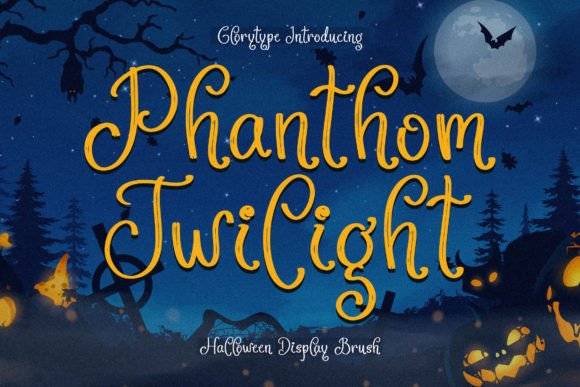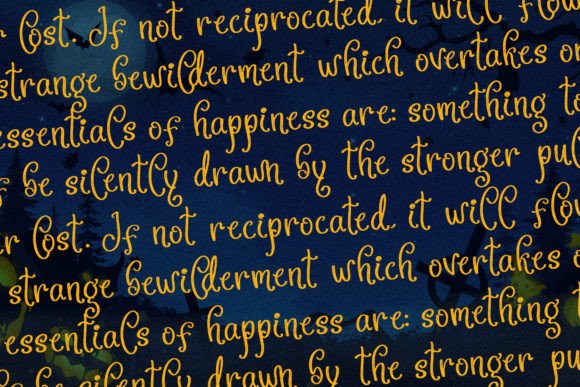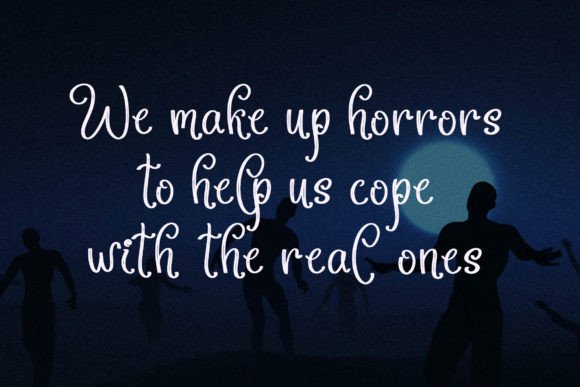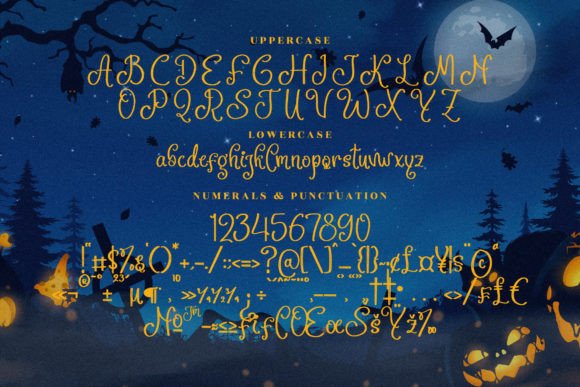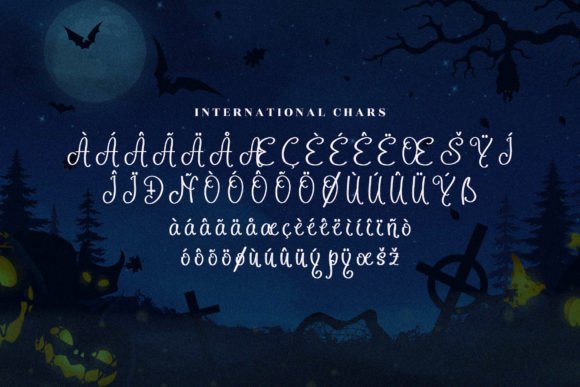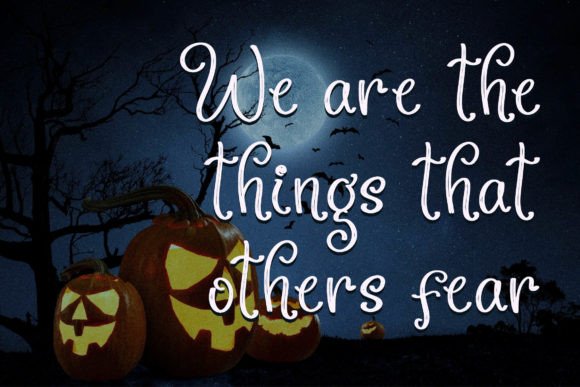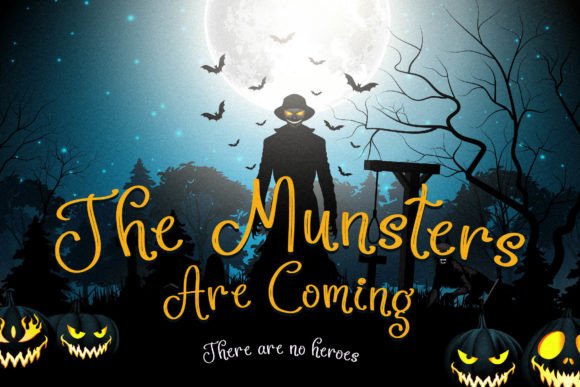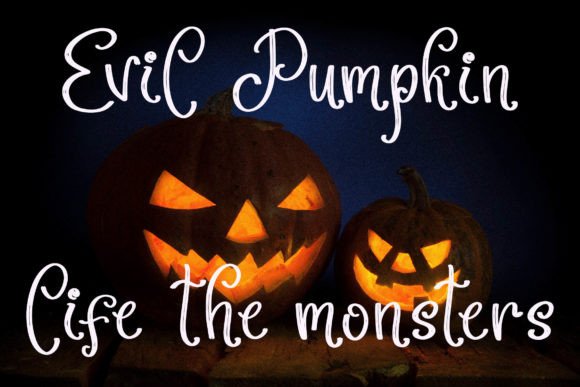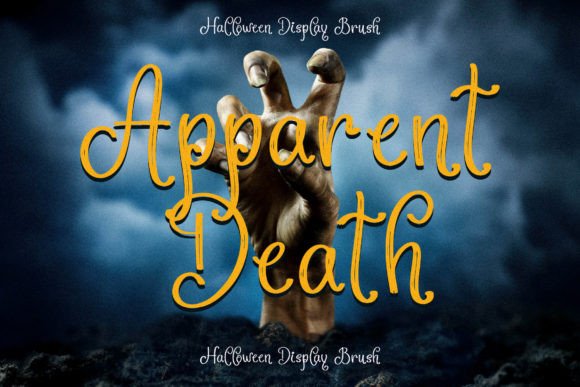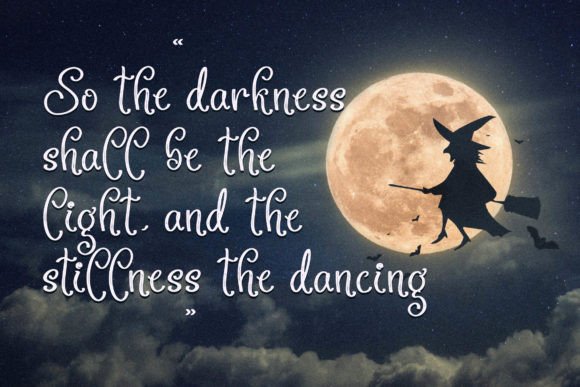
Phanthom Twilight Font
Phanthom Twilight Handwritten Font – Bold Halloween Brush Script
The Phanthom Twilight Handwritten Font is a bold and expressive Halloween-inspired brush script typeface. Created with dynamic handwritten strokes, it brings personality, mystery, and creativity to your projects. Whether you’re designing posters, packaging, or invitations, this font delivers a unique and memorable look.
A Script with Spooky Charm
The Phanthom Twilight Handwritten Font blends playful brush strokes with an authentic handwritten flow. Its dramatic style adds a spooky vibe, making it perfect for Halloween themes. At the same time, it maintains readability, ensuring that your text looks stylish and professional.
Perfect for Posters and Invitations
One of the best uses of the Phanthom Twilight Handwritten Font is in event posters and invitations. Its bold strokes make headlines pop, while its handwritten details bring charm to invitations, greeting cards, and book covers. It also works beautifully in logos, product packaging, and t-shirts, where a creative brush script adds flair.
The Phanthom Twilight Handwritten Font adapts effortlessly across many types of projects. From shopping bags and mugs to photography watermarks and branding, it provides a handwritten brush style that feels both bold and festive. Its versatility makes it an excellent choice for seasonal campaigns and creative everyday use.
Why Designers Love Phanthom Twilight Font
Designers love the Phanthom Twilight HandwrittenFont because it combines spooky Halloween charm with usability. Its expressive strokes create a strong mood, while its clarity ensures it can be used across professional projects. This balance of creativity and function makes it a must-have in design toolkits.
In summary, the Phanthom Twilight HandwrittenFont is a bold, expressive, and versatile brush script typeface. With its Halloween-inspired design, smooth installation, and wide usability, it is perfect for posters, invitations, packaging, and branding. Don’t miss the chance to download Phanthom Twilight HandwrittenFont and add a creative spooky touch to your next project.